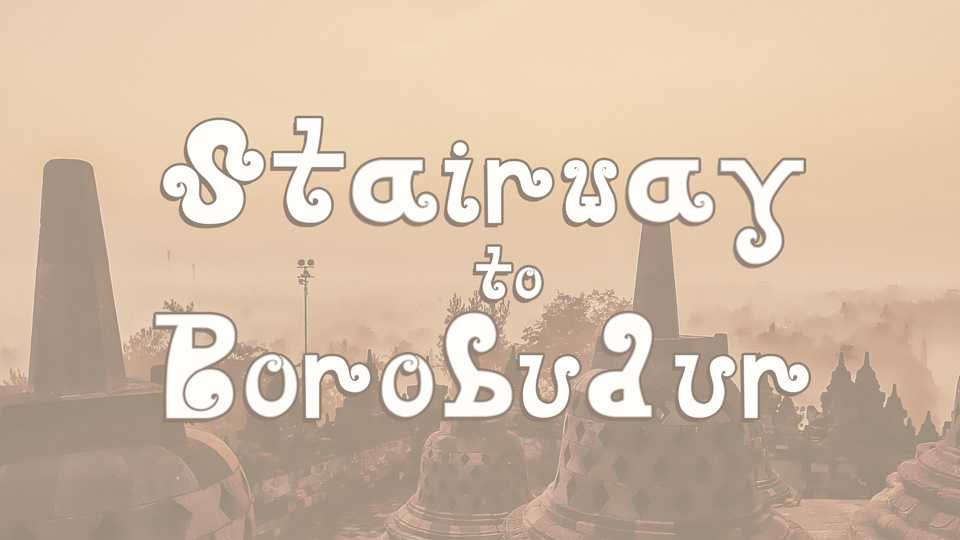
Download Stairway to Borobudur font, a decorative typeface inspired by the Borobudur Temple from Indonesia. It is the world’s biggest Buddhist monument and has existed since 825 AD.